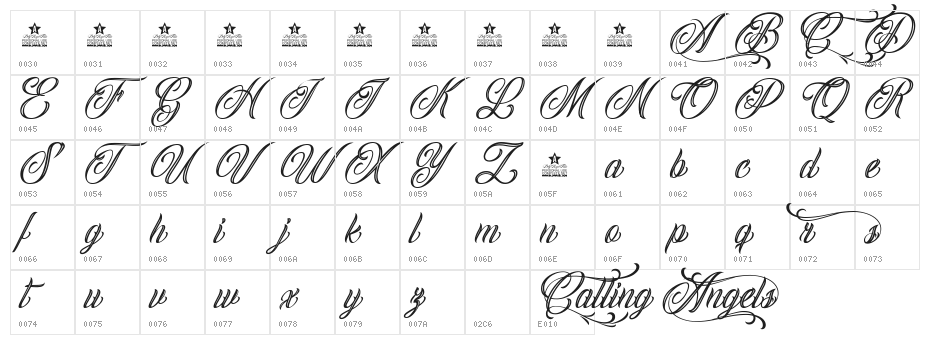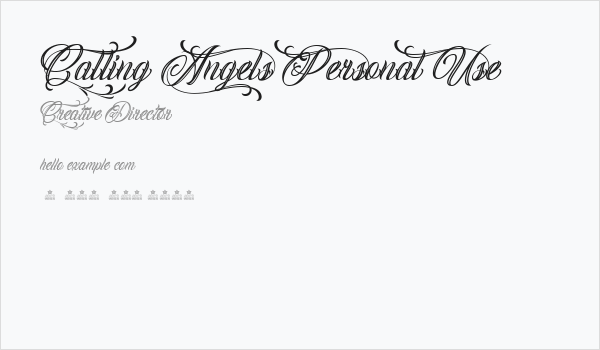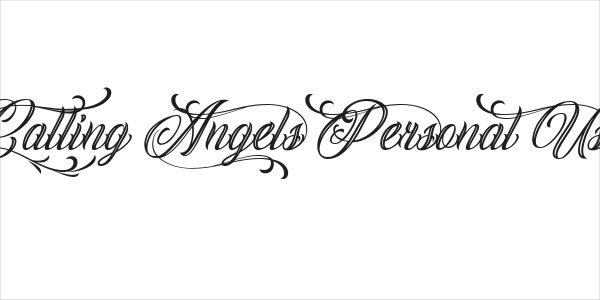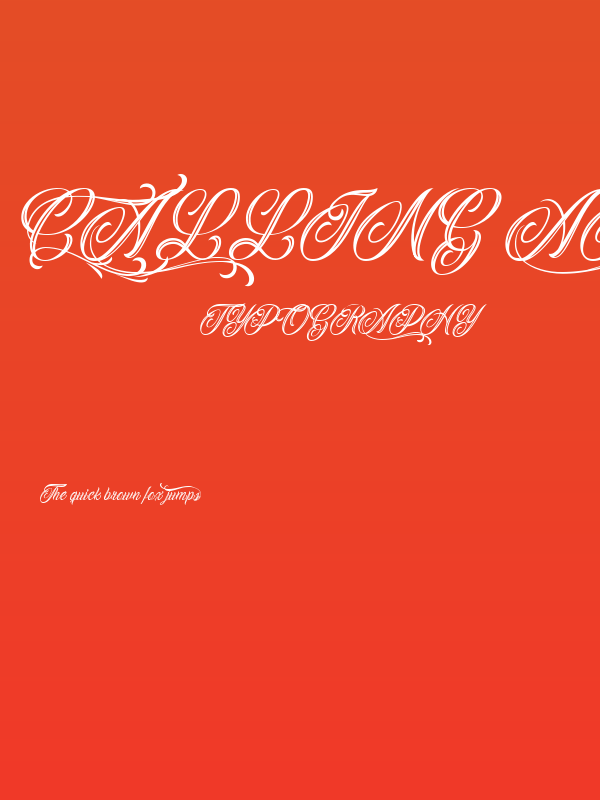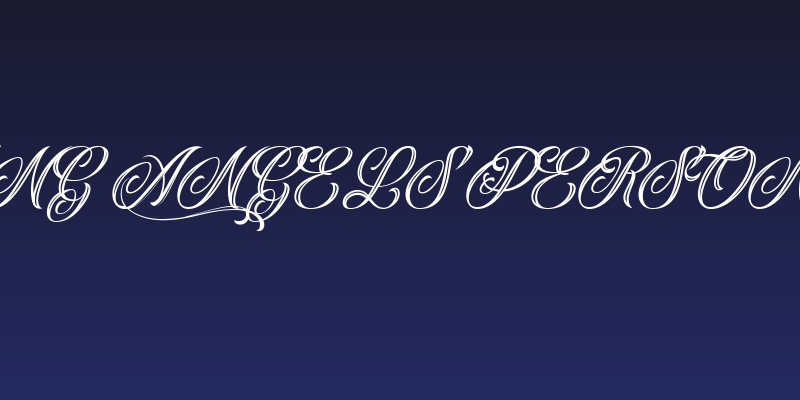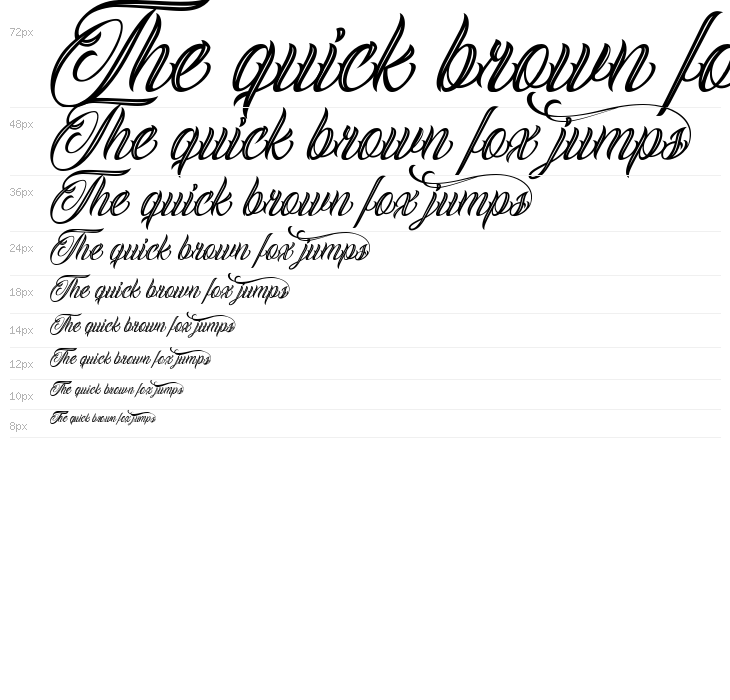
Calling Angels Personal Use Font
| Progetti proposti | Ideal for wedding invitations, elegant branding, artistic posters, and decorative certificates. |